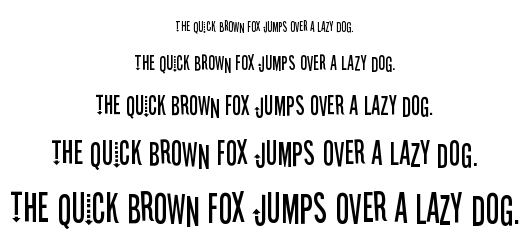
Stereofidelic is a tight, yet frolicsome headline amplifier with cockamamy arrows. In OpenType savvy applications, letters are shuffled to create a more random appreance. Don’t forget to read the files inside the zip for details. Updated in 2012.